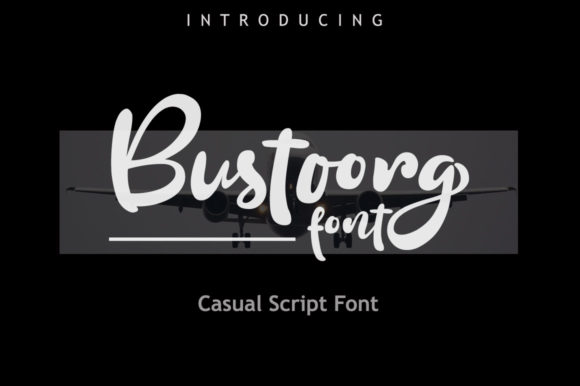
The Bustoorg Font: A Lovely Casual Display Font to Elevate Your Designs
Have you ever been in the middle of a design project, and suddenly, you’re stuck on finding the perfect font? I recall a recent experience where I was working on a branding project for a local boutique, and I just couldn’t find a font that captured the essence of their playful yet sophisticated vibe. That’s when I stumbled upon the Bustoorg font, and it instantly became my go-to choice. In this article, I’ll share my love for this beautiful font, its features, and how to make the most of it in your designs.
My Honest Review of Bustoorg Font
As a designer, I’m always on the lookout for fonts that can add a personal touch to my projects. Here’s what I love about Bustoorg:
• ✨ Bold and Artistic Characters: Bustoorg’s characters are uniquely shaped, giving your designs a bold and artistic look that’s hard to achieve with regular fonts.
• ✅ Casual yet Sophisticated: This font strikes the perfect balance between casual and sophisticated, making it ideal for a wide range of design projects, from branding to social media graphics.
• 💡 Inspires Creativity: The moment I started using Bustoorg, I felt inspired to create more and experiment with different design elements.
While Bustoorg is an excellent font, there are a few quirks to be aware of:
• 🤔 Limited Use Cases: Due to its bold nature, Bustoorg works best as a display font or for short texts. It might not be the best choice for lengthy paragraphs or body text.
• ⚠️ Glyph Limitations: While Bustoorg comes with a range of glyphs and stylistic alternates, it might not have every special character or symbol you need.
The Story Behind Bustoorg Font
Bustoorg was designed with the intention of creating a font that captures the essence of playful sophistication. While the actual designer behind Bustoorg might not be widely known, it’s clear that their goal was to craft a font that inspires creativity and adds a personal touch to designs. Whether you’re a designer, crafter, or creative hobbyist, Bustoorg’s unique charm is sure to elevate your projects.
What type of projects is Bustoorg best suited for? Bustoorg is ideal for branding, social media graphics, posters, and any design project that requires a bold, artistic font.
Does Bustoorg support OpenType features? Yes, Bustoorg comes with a range of OpenType features, including stylistic alternates and glyphs, which can be accessed in compatible design software.